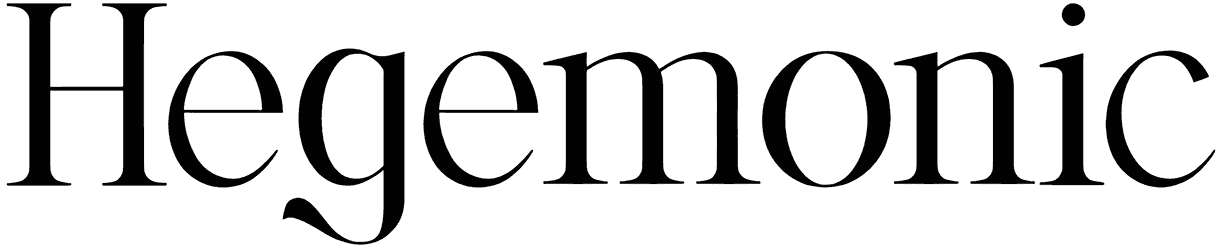
Hegemonic Font
Design your next logotype like a master of typography, relying on nothing but the exquisite letters of Hegemonic. This elegant font goes out of its way to make everything sound very sophisticated with its smart design and graceful look.
So if you have to work on a brand name for a dress designer, law firm, university, or bookstore, don’t miss the great potential of Hegemonic in your logotype designs. This serif font is all you can hope for.